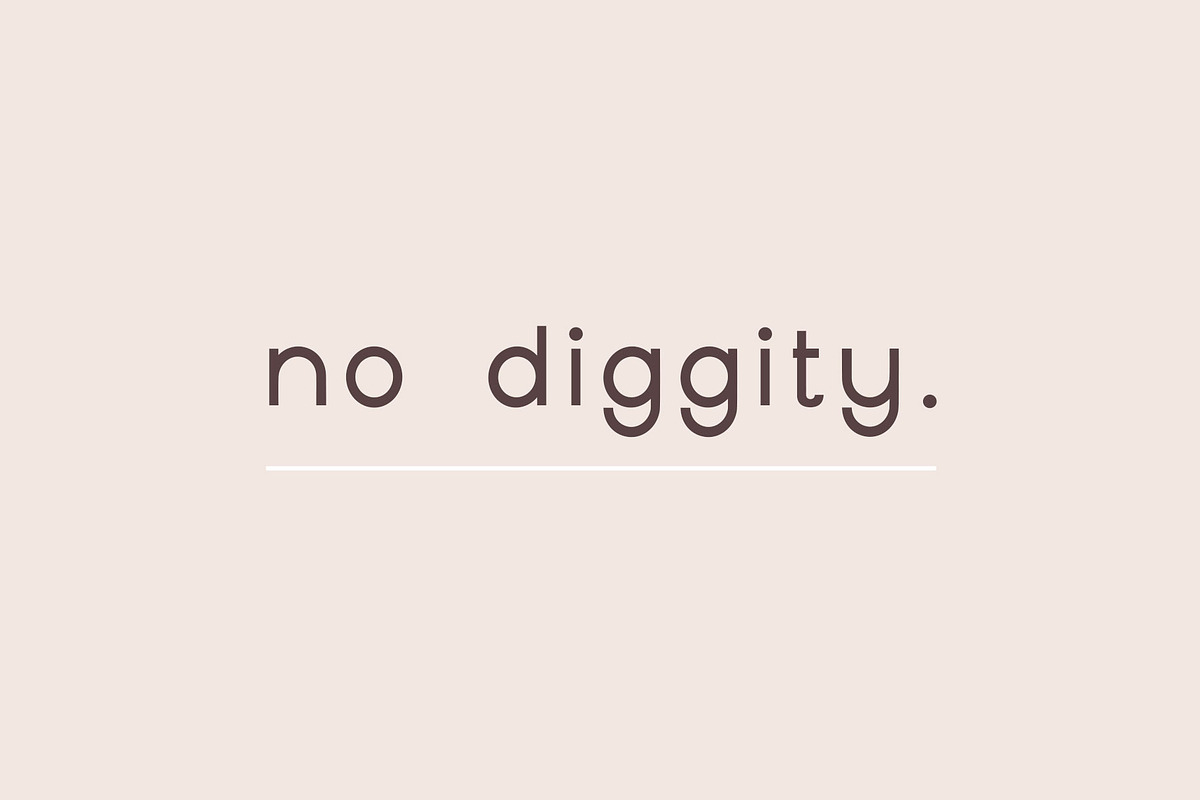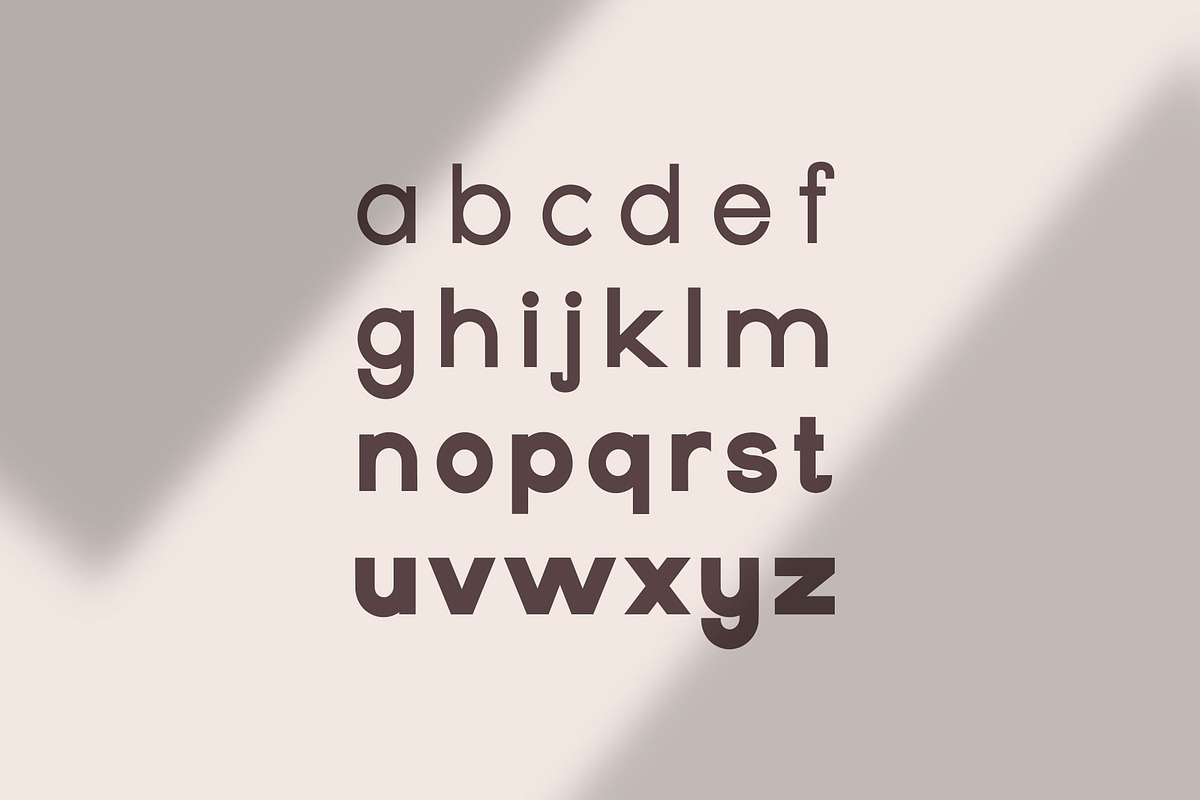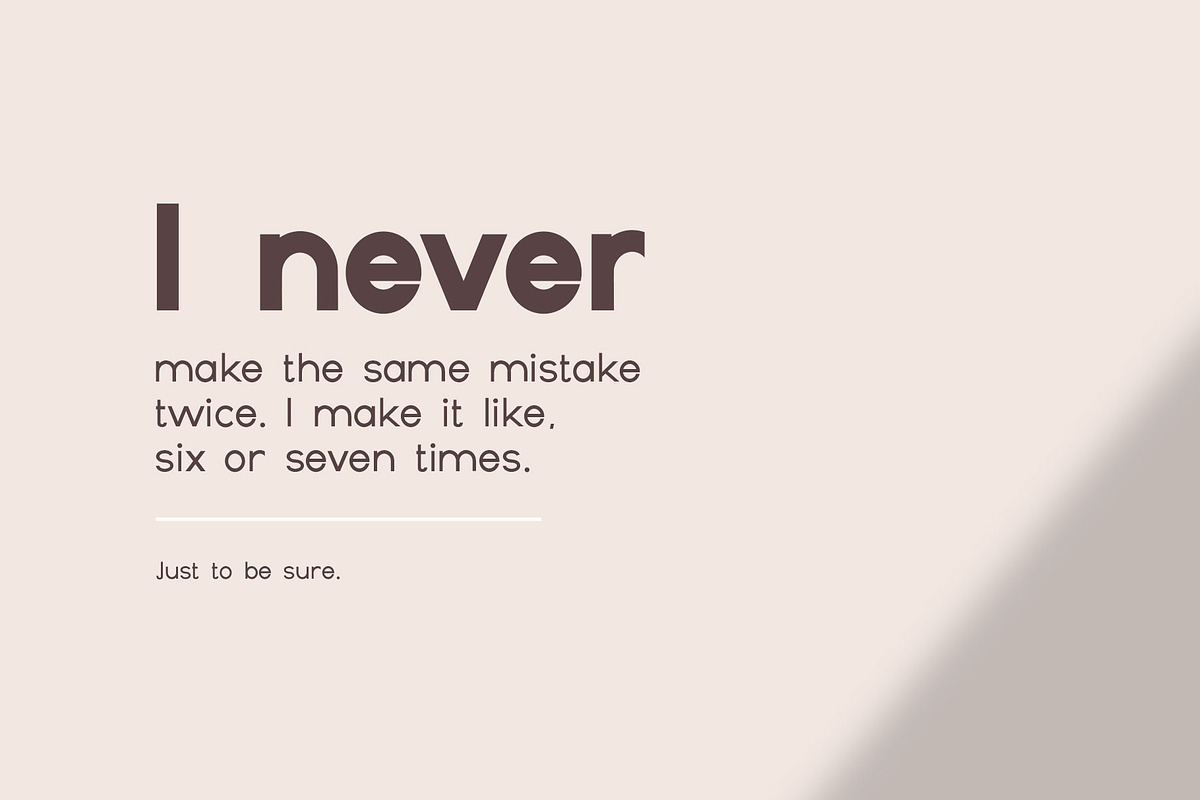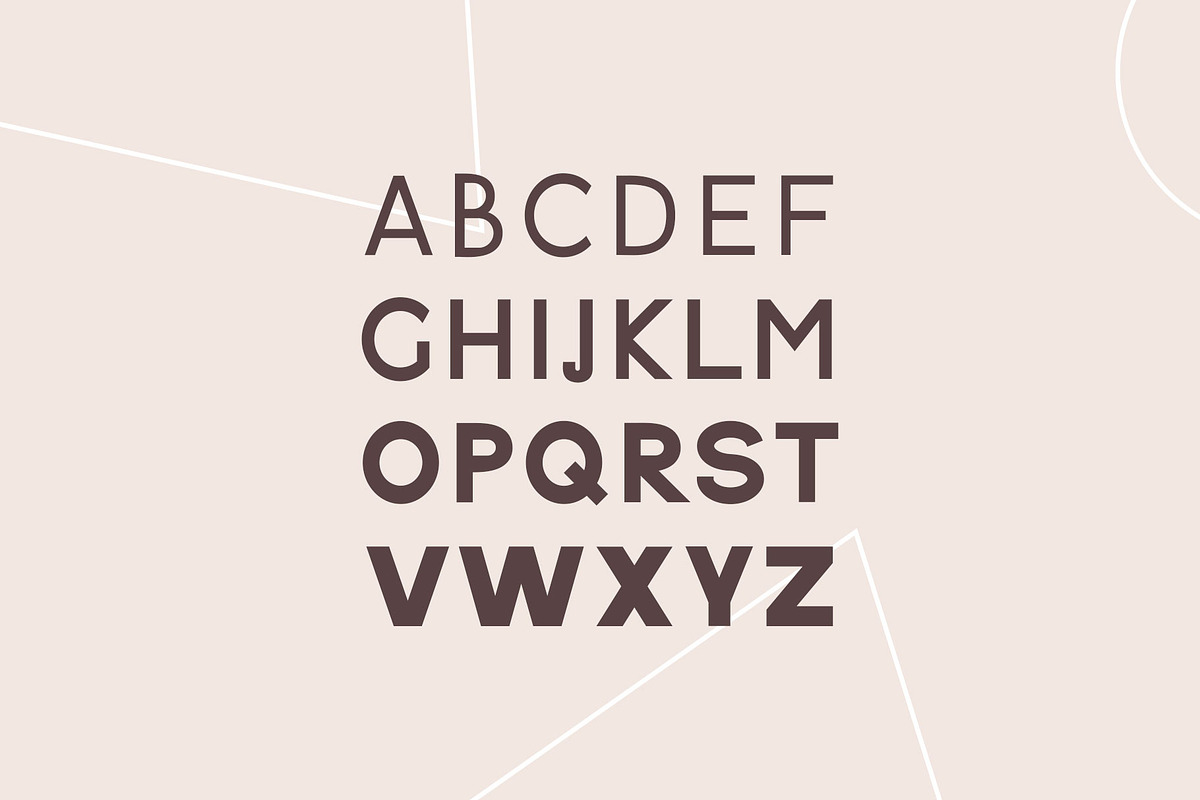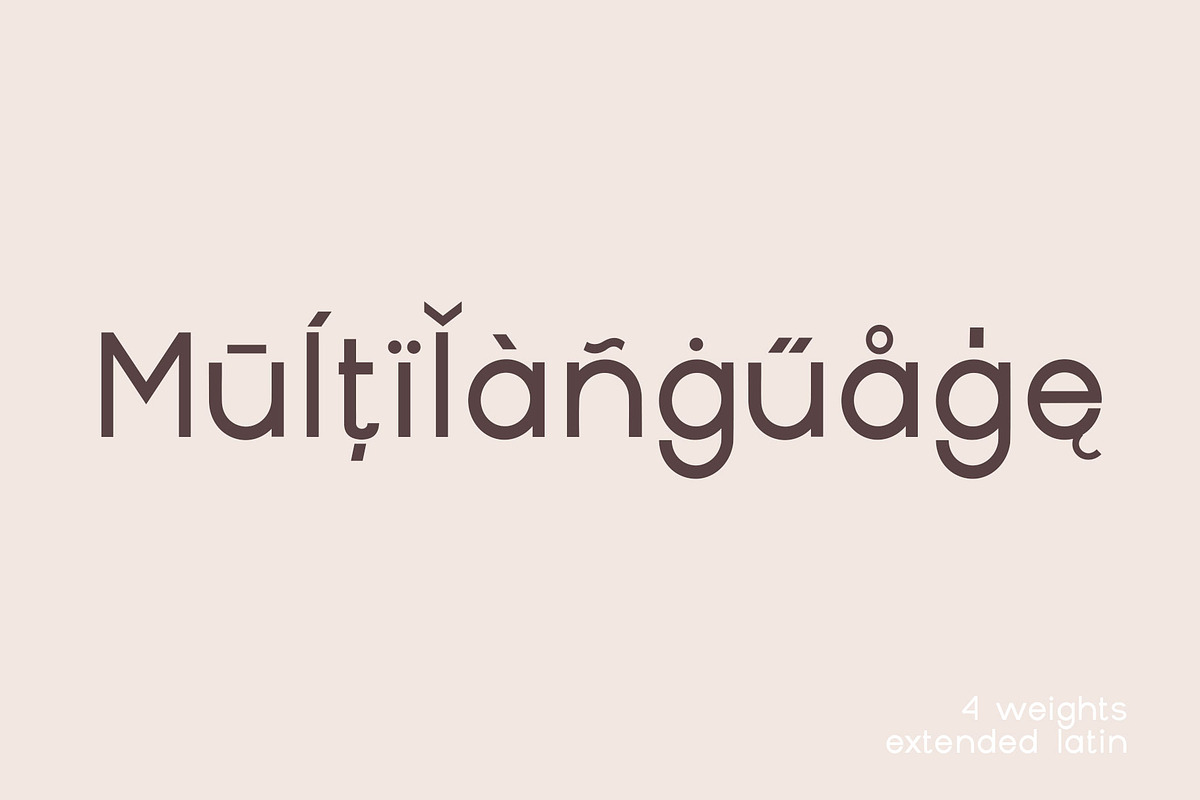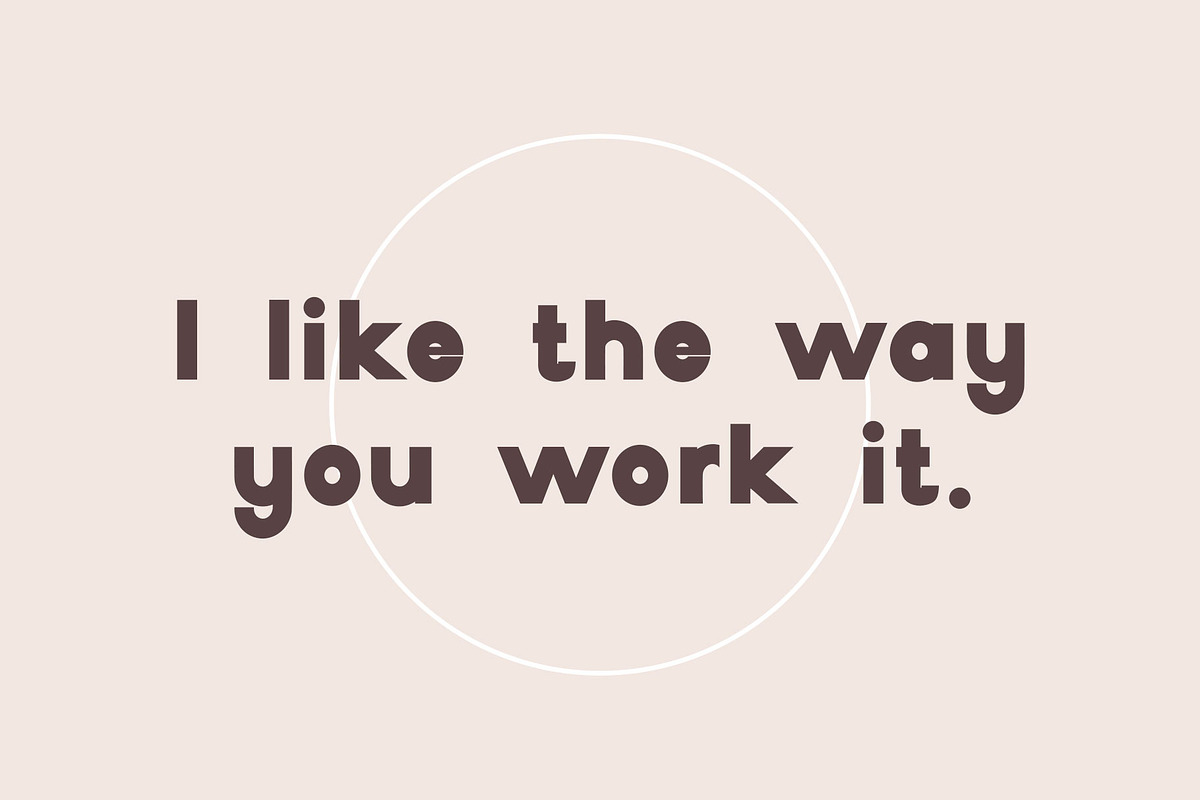
Geometrique | Sans Font Family
Geometrique, a sans serif font family with 4 weights and extended multilanguage characters. Featuring a regular version, medium version, bold version, and an extra bold version.
Geometrique is sure to add a modern flare and trendy vibe to any of your designs. With it's geometric lines and versatility, it's sure to become a staple in your font library.
Numerals and punctuation
Multilanguage characters